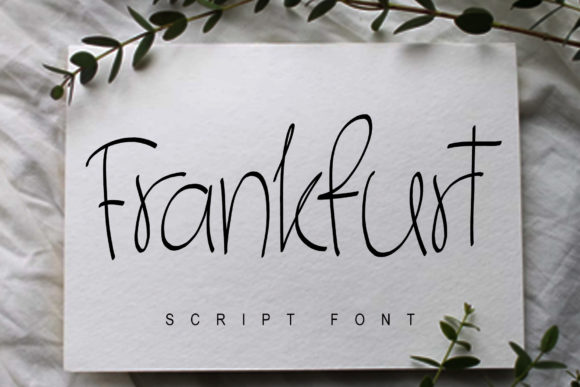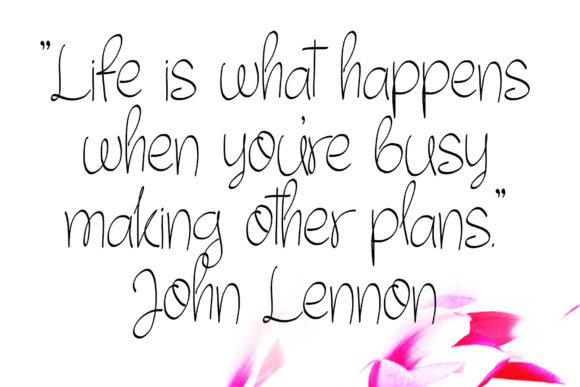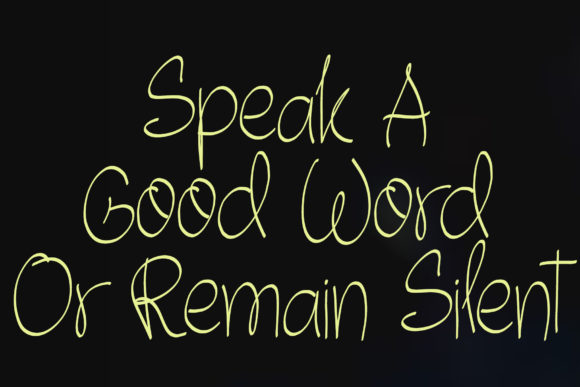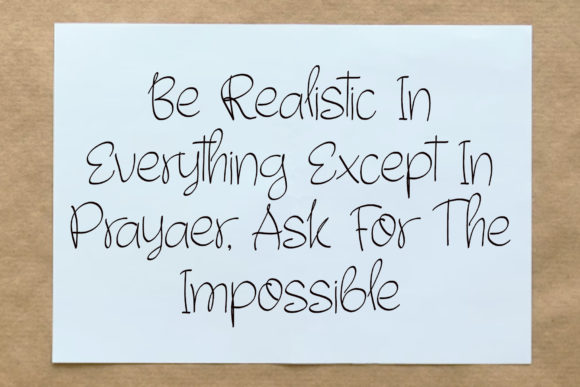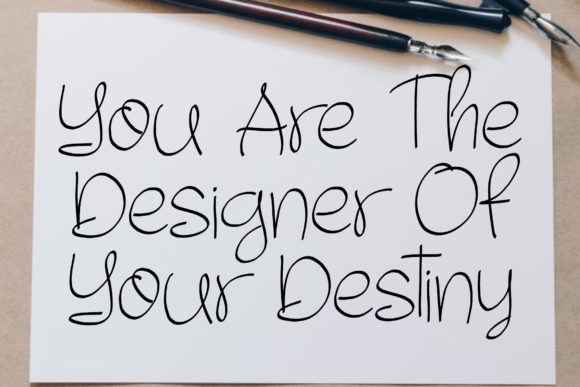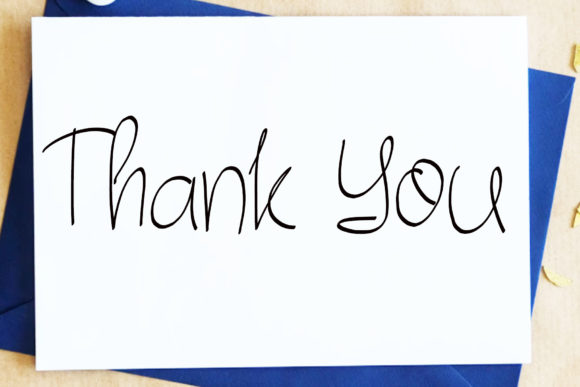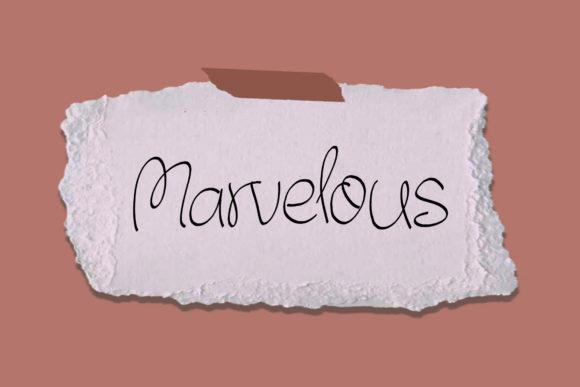
Frankfurt Font
About Frankfurt Font
Frankfurt is a charming and straightforward handwritten font that boasts a timeless appeal. Its simplicity is its strength, making it an excellent choice for a wide range of design projects, from eye-catching logos to impactful branding and memorable quotes.
The font’s unpretentious strokes and effortless flow give it a distinct personality that resonates with both modern and classic design aesthetics. Whether you’re working on a new logo for a business, a personal brand, or an event, Frankfurt’s clean and legible style ensures that your message is communicated clearly and effectively.
When used for branding, Frankfurt brings a sense of authenticity and approachability to your visual identity. Its simplicity is captivating, creating a lasting impression that appeals to a broad audience. Whether it’s on product packaging, business cards, or promotional materials, Frankfurt’s straightforward elegance enhances the overall aesthetic and reinforces the brand’s image.
Quotes take on a new dimension with Frankfurt’s balanced and varied design. The font’s subtle curves and consistent letterforms make your words pop, adding a touch of sophistication to any piece of text. Whether it’s a motivational quote, a tagline, or a statement of purpose, Frankfurt elevates the message and draws readers in.
The font’s versatility is further evident in its adaptability to different design contexts. Its clean lines make it suitable for both digital and print media, ensuring that your projects maintain a polished and professional appearance across various platforms. Whether it’s on a website, social media graphics, or printed materials, Frankfurt’s simplicity shines through, making it an asset in any design toolkit.
The beauty of Frankfurt lies in its ability to enhance your ideas without overwhelming them. Its minimalist charm allows your content to take center stage while still leaving a lasting impression. Whether you’re a designer, business owner, or creative individual, Frankfurt offers a reliable and aesthetically pleasing option for your typographic needs.
In summary, Frankfurt’s simple handwritten style, combined with its versatility and legibility, makes it an excellent choice for creating eye-catching logos, impactful branding, and memorable quotes. Its balanced and varied design ensures that it enhances the beauty of your ideas while maintaining an elegant and timeless appeal. Enjoy the creative possibilities that Frankfurt brings to your projects!